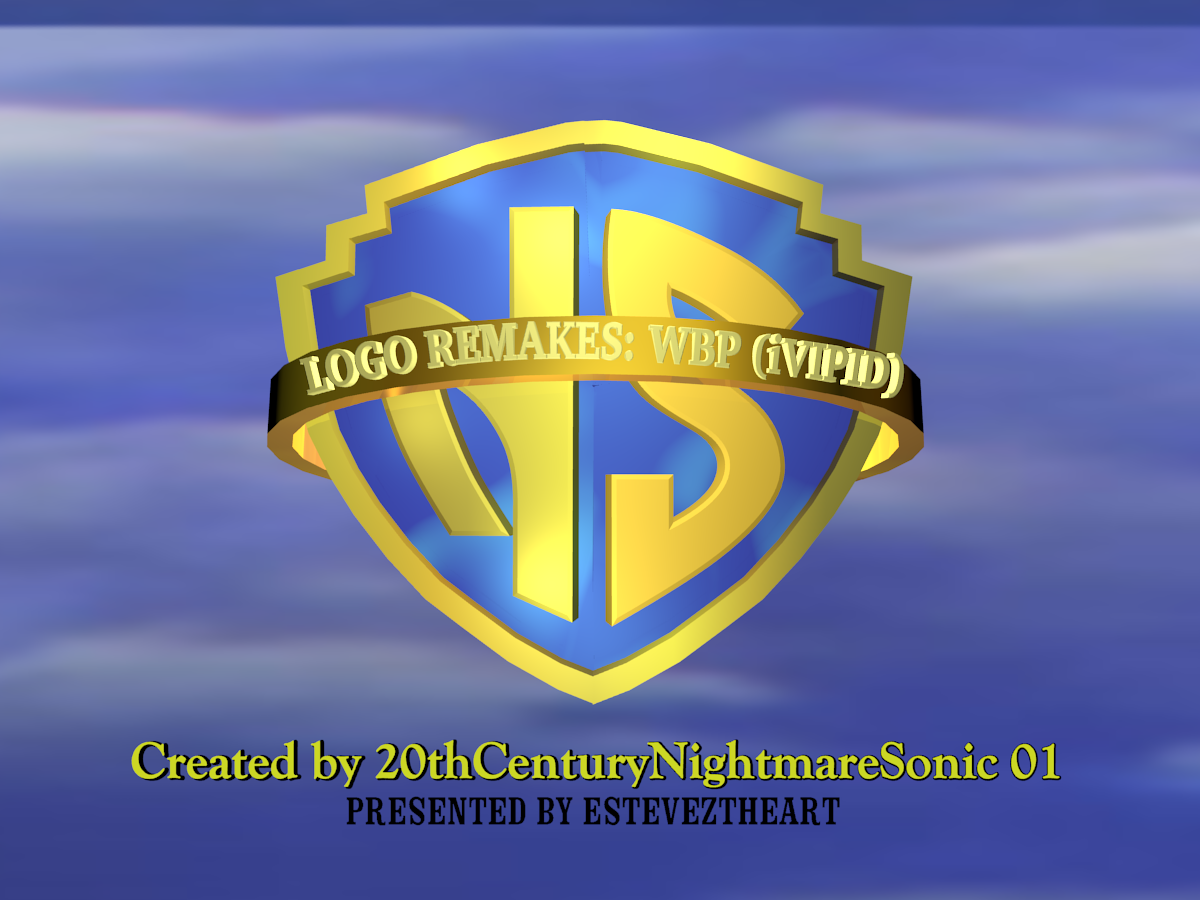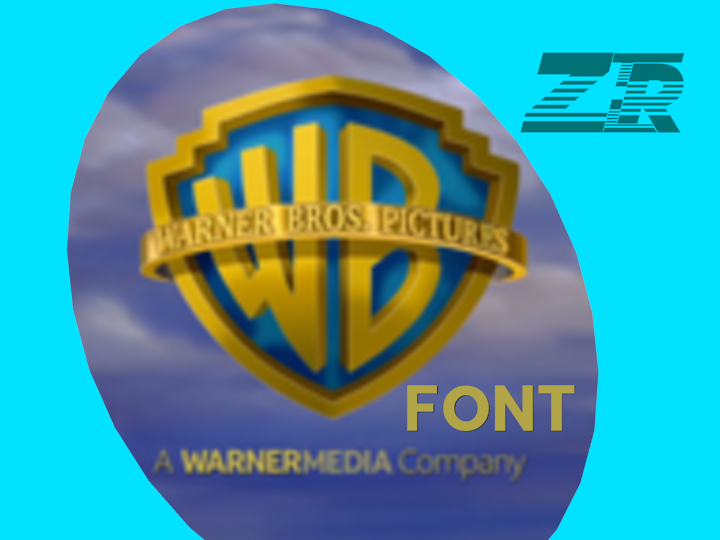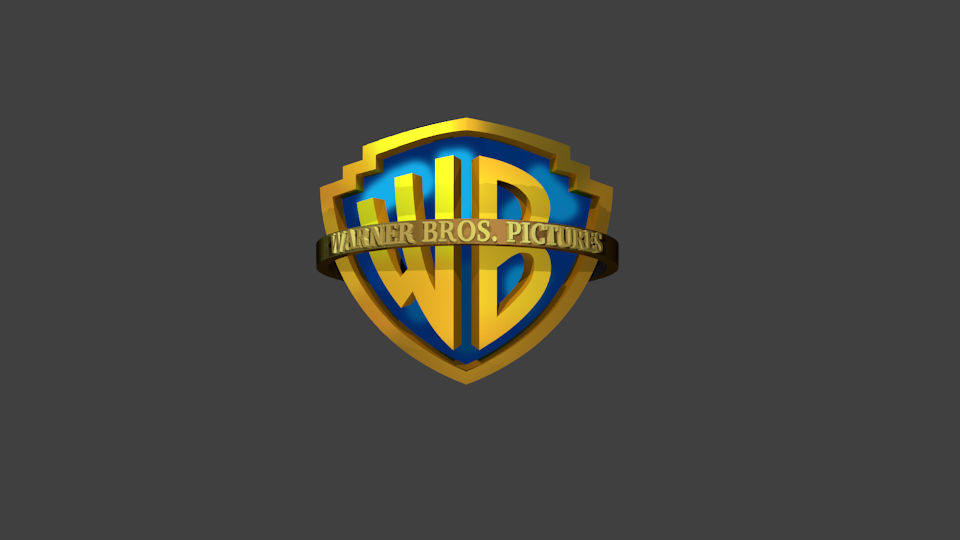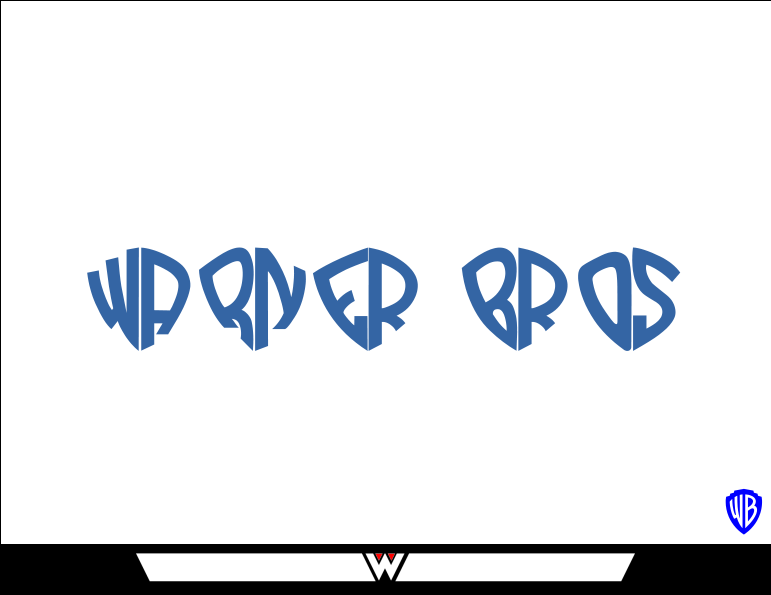
Click to find the best 10 free fonts in the warner bros style. The other one is called warner logo font nine.
The font began development during a call on google hangouts when i traced the wb lettering from the 75 years image. Before the 1925 update, this logo was used as a primary logo until the same year. In the tradition set by the likes of meta and tahoma, anna giedry's designed.